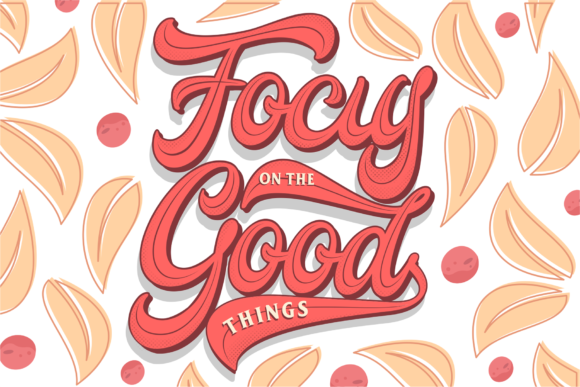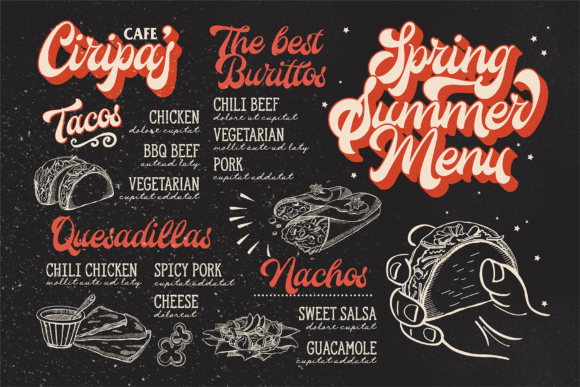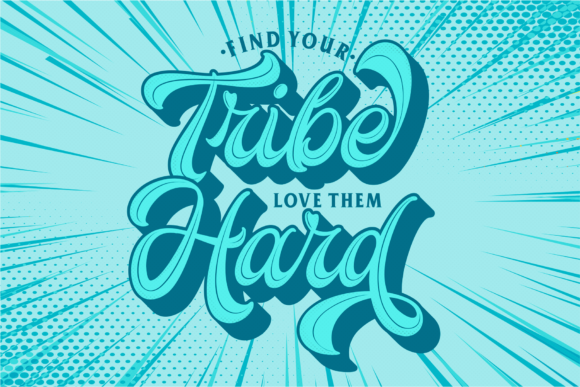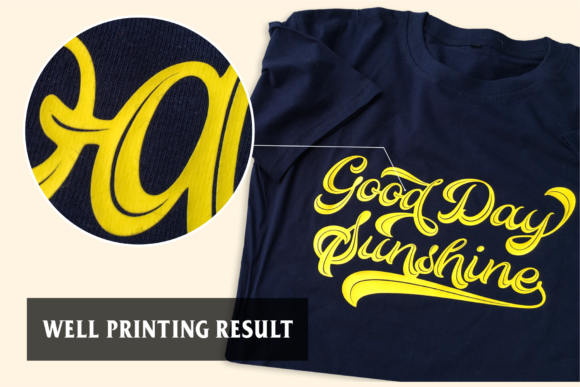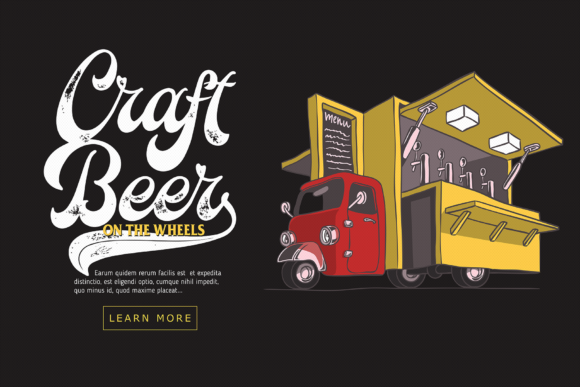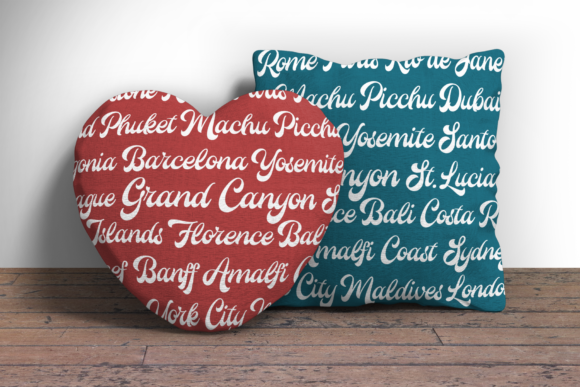
Setting Sail for Creativity: The Bon Voyage Duo Font
Have you ever found yourself stuck in a creative rut, struggling to come up with the perfect design for a project? It’s a feeling we’ve all been there, but it’s also a great opportunity to explore new possibilities and discover fresh inspiration. For designers looking to add a touch of vintage charm and modern flair to their work, the Bon Voyage Duo Font is the perfect companion to take on any creative journey.
This elegant handmade font duo is inspired by the retro handlettering of the 1970s, infused with a pop of style that’s sure to make your designs stand out. With its precision layers and numerous glyphs, the Bon Voyage Duo Font is both easy to use and highly versatile, making it an invaluable addition to any designer’s toolkit.
Bon Voyage Duo Font Key Features
- Font Family: Bon Voyage Duo, a unique and elegant script font
- Character Count: 1200+ characters, including Latin, Cyrillic, and Greek alphabets
- Unique Characteristics: Hand-drawn design, fluid connections between letters, and subtle flair at the end of strokes
Designer Review: Bon Voyage Duo Font
Overall, I have mixed feelings about the Bon Voyage Duo Font. On the one hand, I appreciate the unique and vintage flair it brings to designs. ✨ The elegant curves and subtle flair of the font make it perfect for creating a sense of sophistication and nostalgia.
Here are some of the things that work well in this font:
- ✨ Unique character set with both serif and sans-serif styles
- ✨ Elegant curves and subtle flair
- ✨ Perfect for creating a sense of sophistication and nostalgia
- ✨ Supports a wide range of languages
- ⚠️ The font can be quite busy and overwhelming when used in large quantities
- ⚠️ Some characters may be difficult to read in certain contexts
- ⚠️ Limited font weights and styles
Overall, the Bon Voyage Duo Font is a great choice for designers looking to add a touch of vintage charm to their designs. While it may have some limitations, the unique character set and elegant curves make it a great option for creating sophisticated and nostalgic designs.
Use the Bon Voyage Duo Font to add a touch of elegance and sophistication to your designs. Pair it with a bold font for contrast or use it in a single-color scheme for a cohesive look.
The Bon Voyage Duo Font is perfect for:
- Travel and adventure branding
- High-end fashion and luxury branding
The Bon Voyage Duo Font includes a comprehensive character set that supports most Latin-based languages, including English, Spanish, French, German, Italian, and many more. The font also includes a range of punctuation and symbol characters to ensure you have everything you need for your design projects.